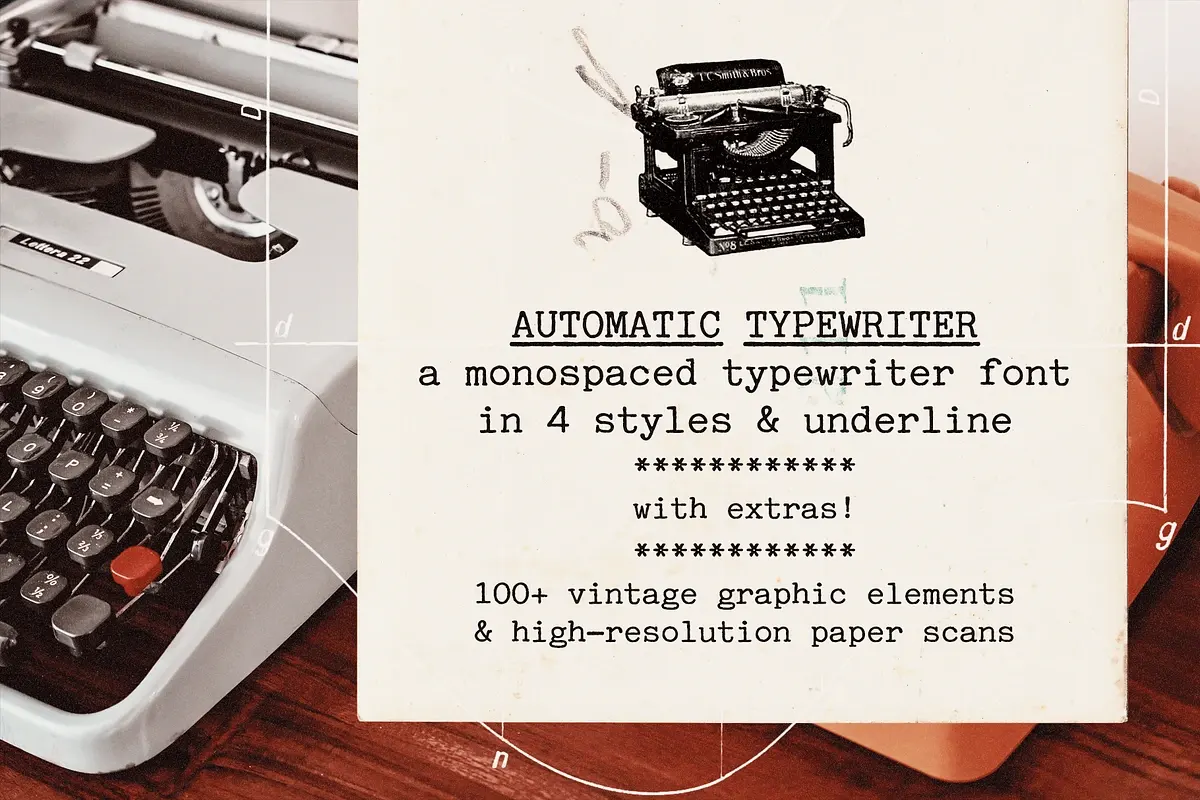
Automatic Typewriter Font and Extras Free Download is a charming and nostalgic typeface inspired by classic typewriter fonts. With its vintage style, this font is perfect for creating retro designs, posters, logos, invitations, and anything that requires a timeless, typewritten aesthetic. The included extras offer additional decorative elements to enhance your designs with unique flourishes and details.
Whether you’re crafting a retro brand identity, designing an old-school poster, or creating a nostalgic invitation, Automatic Typewriter adds character and authenticity to your typography. It’s the perfect font for designers who love the classic, handwritten look of a typewriter.